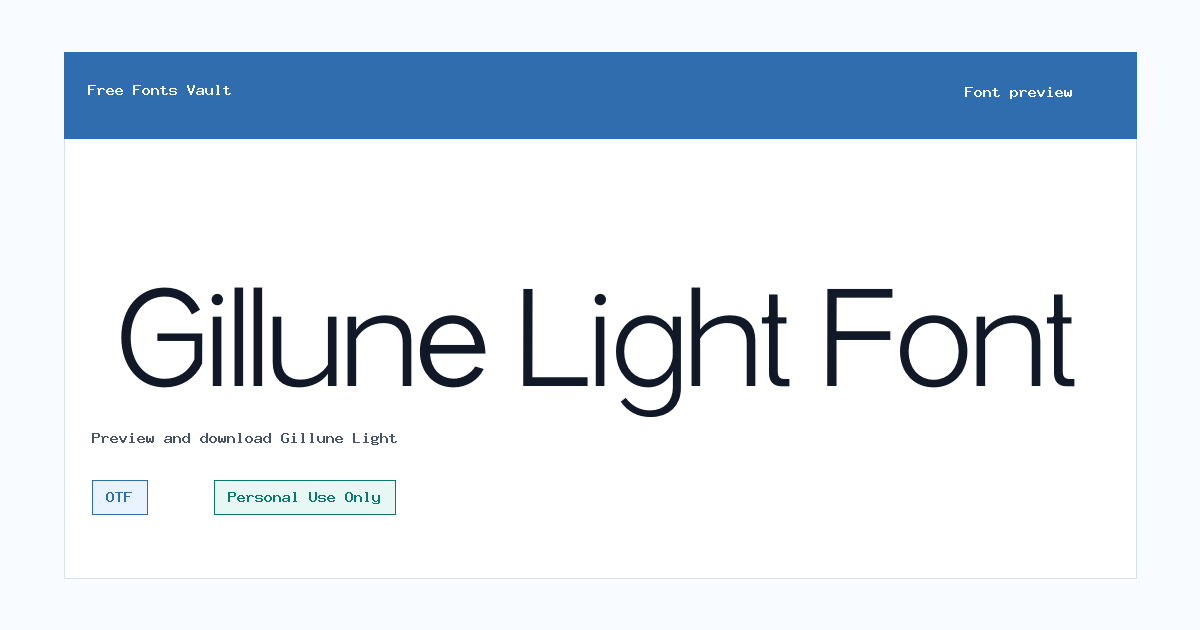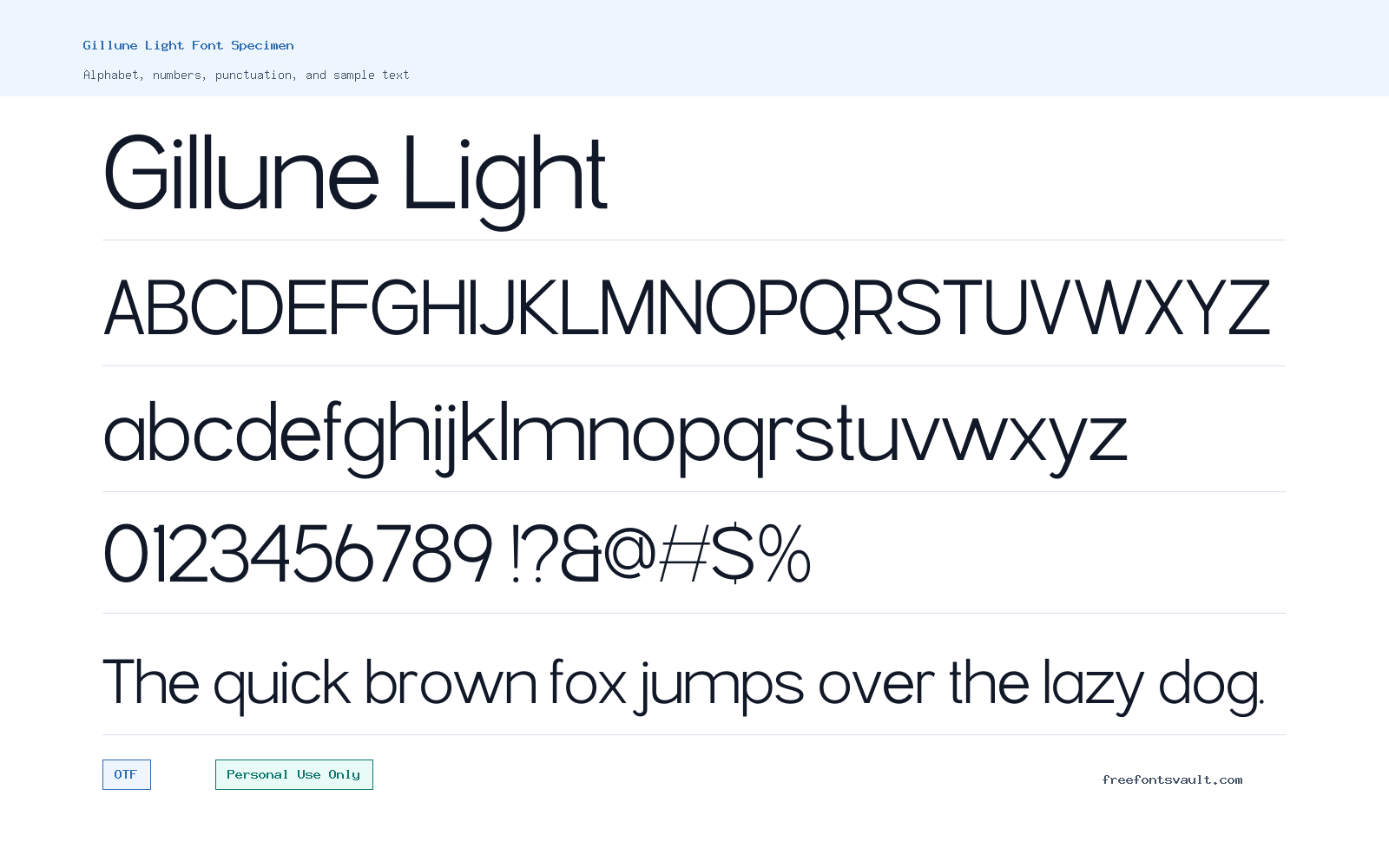
Gillune Light
Gillune Light Font
• Designer Casloop Team
• Foundry Casloop Studio
Gillune Light is a light-weight sans serif font family with regular and italic OTF styles, designed for clean layouts, soft branding drafts, posters, and display text that needs a lighter touch.
About Gillune Light
Gillune Light is a simple sans serif option for projects where a lighter font weight is more useful than a heavy headline face. The available styles are a normal light cut and a matching light italic, both in OTF format. That gives you enough flexibility for short headings, subheads, pull quotes, captions, and design mockups where the typography should feel clean without taking over the whole layout. Because the weight is listed as 300, it will usually work best at medium to large sizes rather than as very small body copy. Thin strokes can lose clarity in tiny text, low-resolution previews, or busy backgrounds, so it is worth testing the font in the live preview before using it in a full layout.
For designers, Gillune Light is best approached as a restrained display and supporting text font. Try it for minimalist posters, fashion-style mood boards, portfolio covers, social graphics, personal logo sketches, web hero sections, and elegant quote layouts. The italic style can help with emphasis, short taglines, editorial captions, or secondary text under a main title. For logo work, test both uppercase and lowercase words, check the spacing between letters, and preview the mark at small sizes before deciding. A light sans serif can look refined in a large lockup, but it may need careful contrast, generous spacing, and a simple background to stay readable.
• Light-weight sans serif style with a listed font weight of 300
• Useful for clean headings, soft branding drafts, posters, and short editorial text
• Best tested at medium and large sizes because light strokes can lose clarity when small
• Personal branding concepts and logo drafts
• Minimal poster titles and event graphics
• Portfolio covers, mood boards, and presentation slides
• Website hero text and interface mockups
• Quote graphics, captions, and short editorial layouts
Use Gillune Light where a clean, light sans serif tone fits the design. Keep it readable by using larger sizes, strong contrast, and enough letter spacing when needed. The italic style is better for short emphasis than long paragraphs. Pair it with a sturdier text face if your project has body copy.
What weight is Gillune Light?
The listed font weight is 300, which is commonly treated as a light weight.
Is Gillune Light good for body text?
It may work for short sections, captions, or larger text, but the light weight may be harder to read in long paragraphs or small sizes. Test it in your actual layout.
Who designed Gillune Light?
Gillune Light is credited to Casloop Team, with Casloop Studio listed as the foundry.